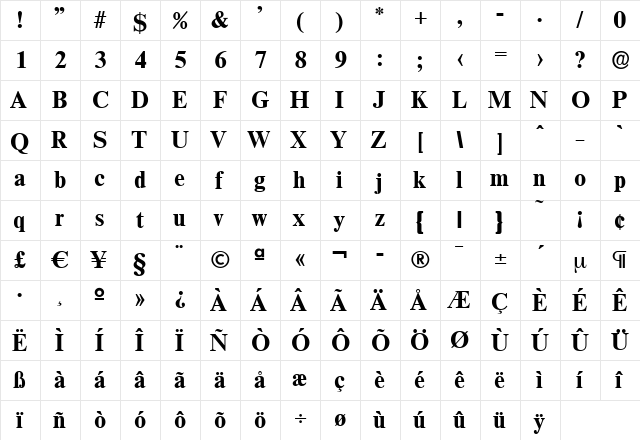
JonasBecker Bold
Design Context for JonasBecker Typeface
JonasBecker takes a measured approach to typography — its balanced proportions and neutral character make it a reliable workhorse for both digital and print work. The heavy weight commands attention and anchors typographic hierarchies.
Pro Tip: Use JonasBecker in both headline and body roles to test its range before committing to a single application.